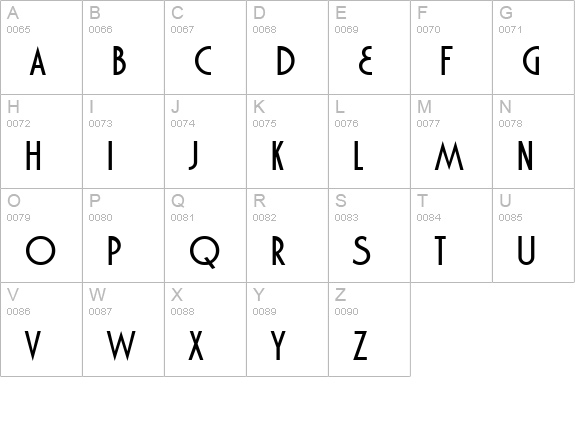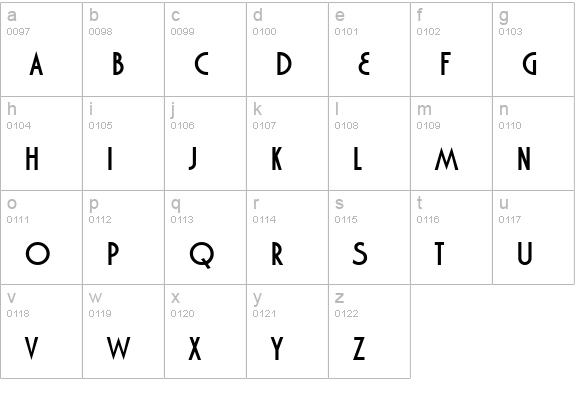
Marquisette BTN Bold Font Details
Marquisette BTN Bold is a strong, high-contrast variant in the Marquisette typeface family \xE2\x80\x94 well suited to headlines, attention-grabbing titles, and strong calls-to-action.